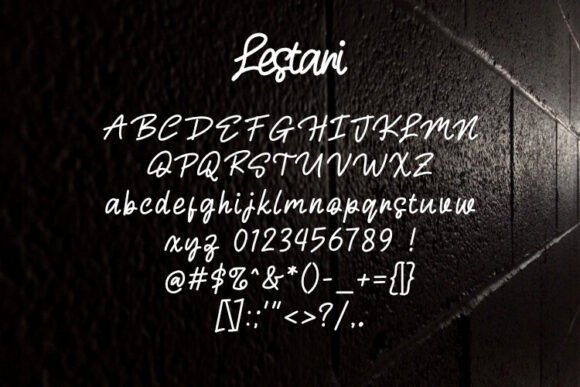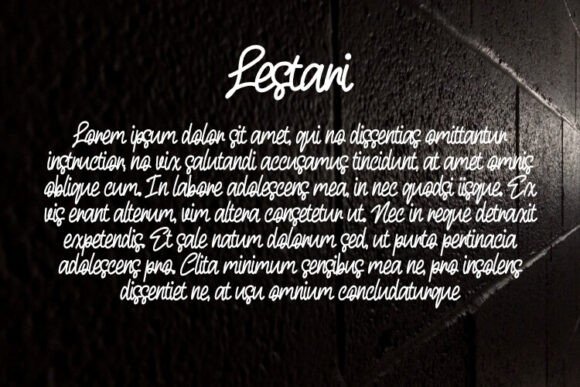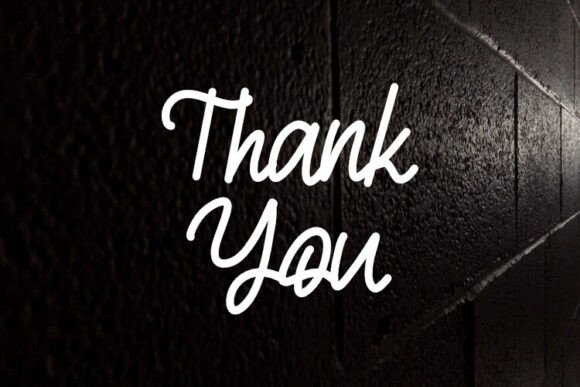
Introduction to Lestari Font
Immerse yourself in the visual appeal of the β€œLestari” font.
Its universal adaptability makes it a superb choice for integrating into fashion apparel, T-shirt graphics, and a spectrum of other product designs Effortless compatibility means it dovetails flawlessly with any software you could be utilizing.
Key Features of Lestari Font
Why Choose Lestari Font?
Lestari Font offers exceptional quality and versatility, making it a valuable addition to your design toolkit. Whether you’re creating for personal projects or commercial use, Lestari Font delivers professional results.